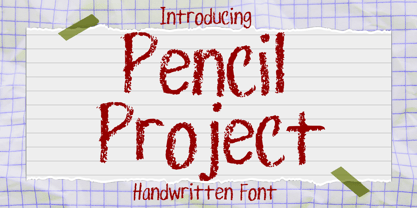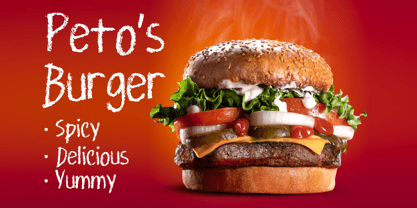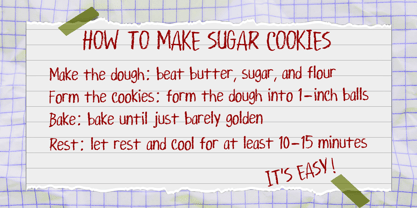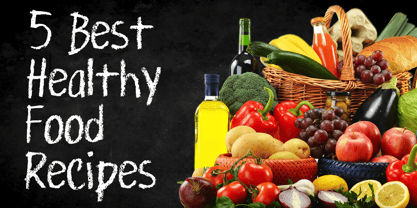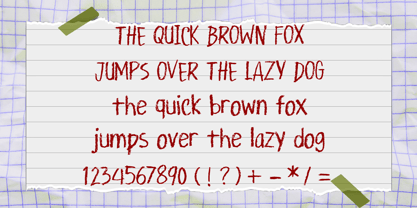
Pencil Project
by Mvmet
The Pencil Project Font Family was designed by Gabriel Valentinus and published by Mvmet. Pencil Project contains 1 styles. More about this family
Pencil Project is a fun handwritten font with pencil, graphite, crayon, or chalkboard texture that you can use it for anything ranging from t-shirts, book designs, packaging, and greeting cards to stickers and posters, or anything that needs a casual touch, it will be your perfect font to pick. Fall in love with its incredibly versatile style, and use it to create lovely designs!
Designers: Gabriel Valentinus
Foundry: Mvmet